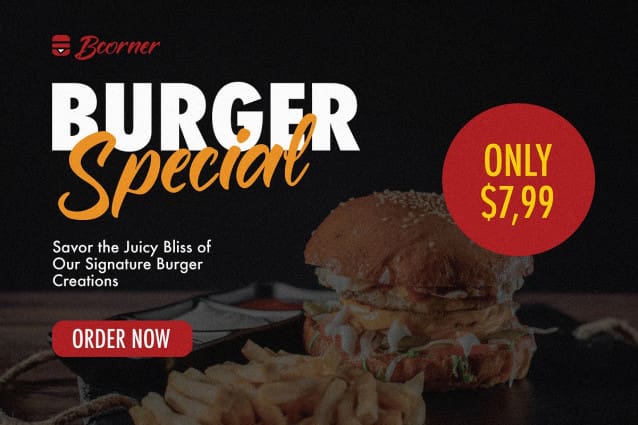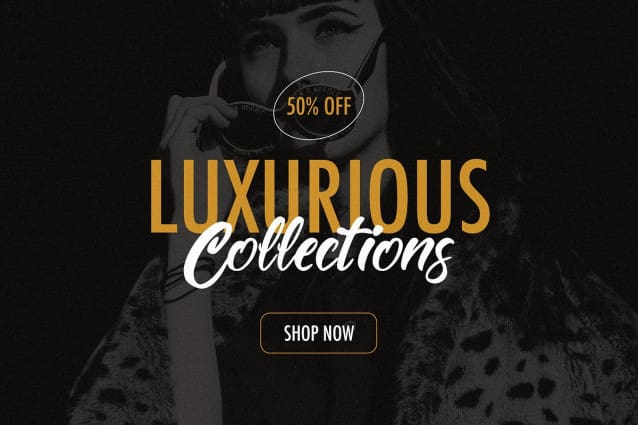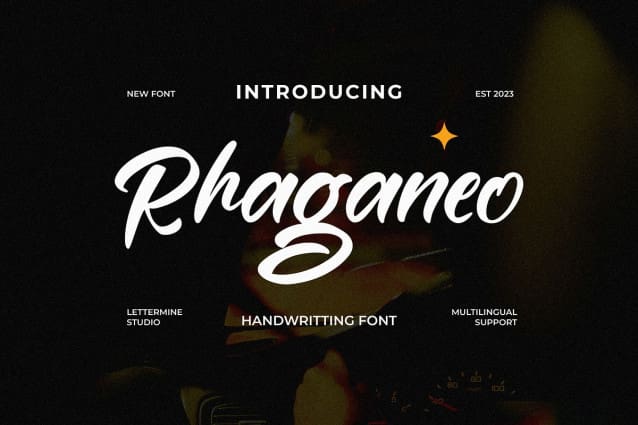
Rhaganeo Script Font
Rhaganeo Script Font is a captivating work of art in the form of handwriting. Designed with love and meticulous attention to detail, this font caters to all your design needs. With its beautiful handwriting style, Rheganeo is suitable for a wide range of projects, including invitations, magazines, commercial promotions, menus, and much more.
Key Features:
Uppercase: Elegant and stylish capital letters that give a special touch to every word.
Lowercase: Beautiful lowercase handwriting for added softness and exceptional readability.
Punctuation: A complete set of punctuation marks to assist you in crafting perfect sentences.
Multilingual: Support for various languages allows you to create stunning global designs.
Rhaganeo Script Font is the perfect choice for graphic designers, invitation designers, business owners, and anyone seeking an elegant and unique look for their projects. This font will make your message stand out and impress effortlessly.